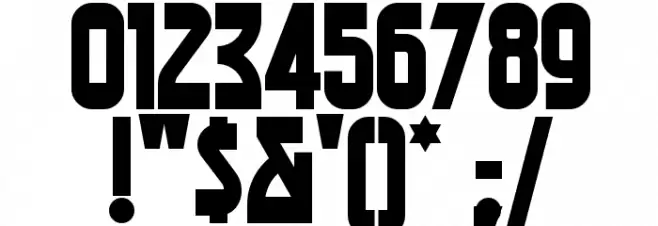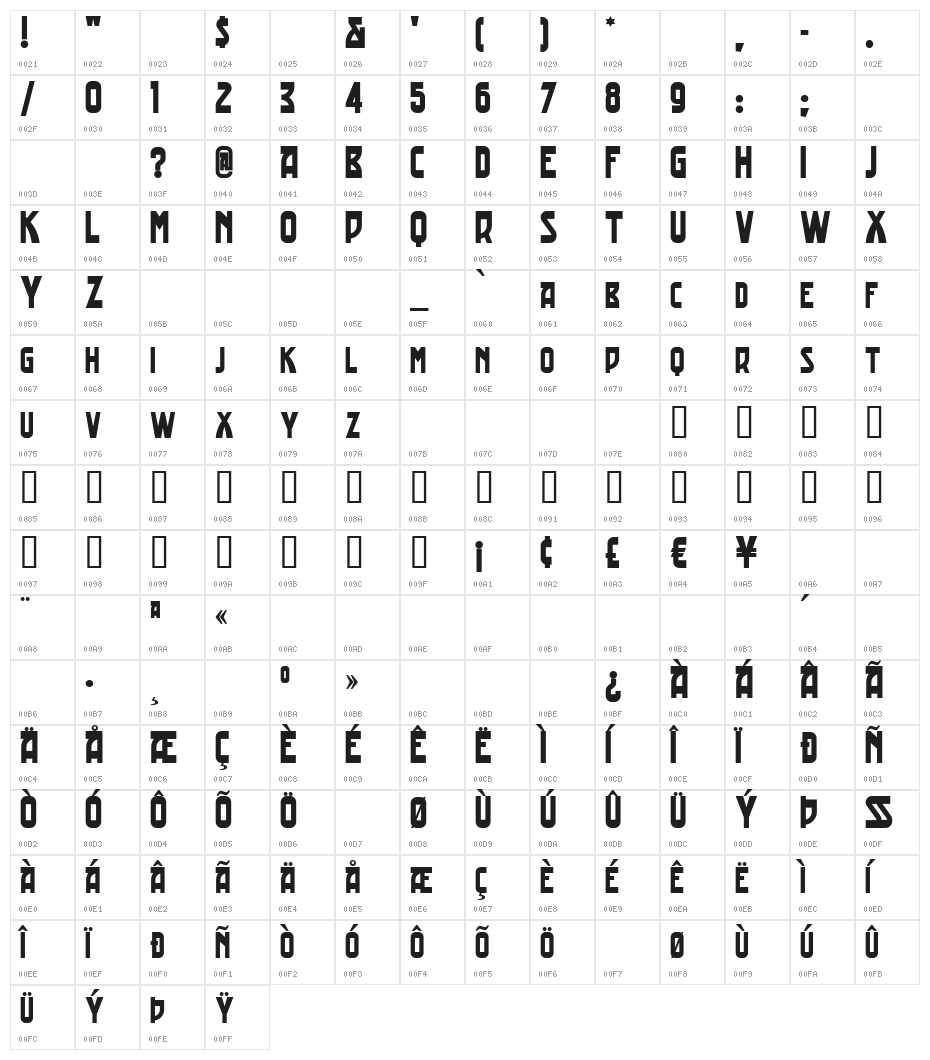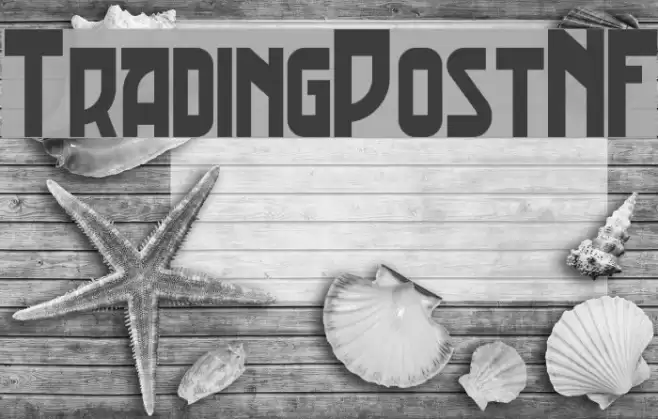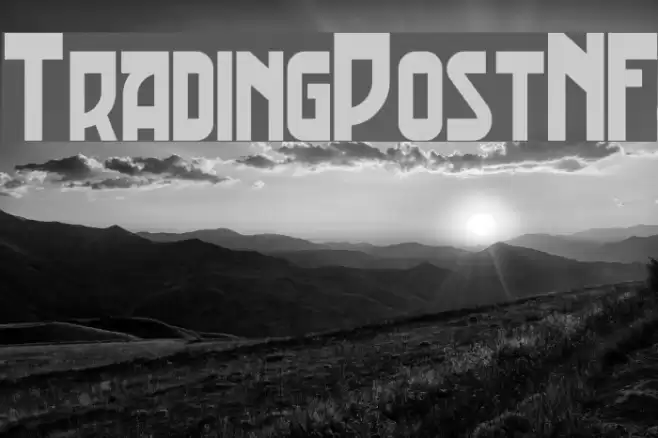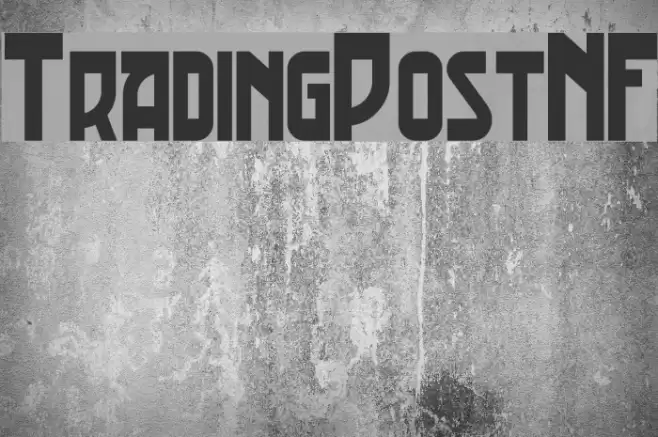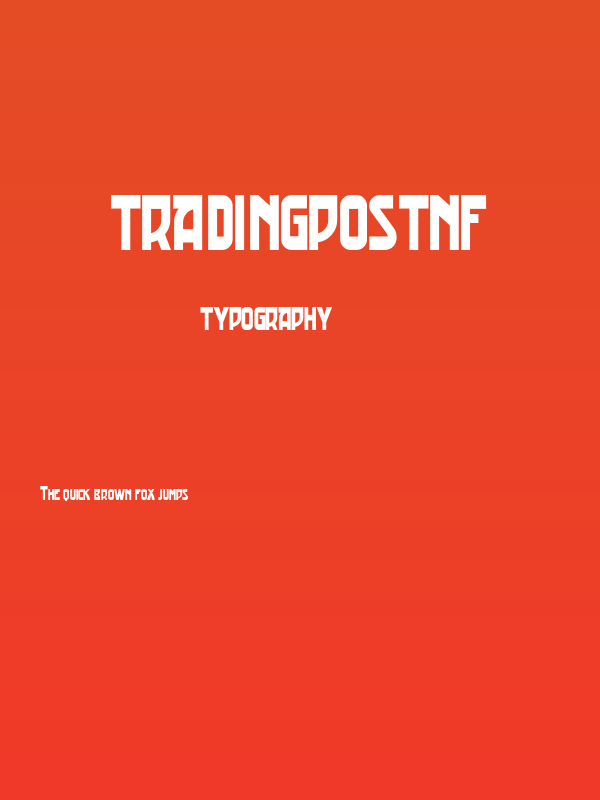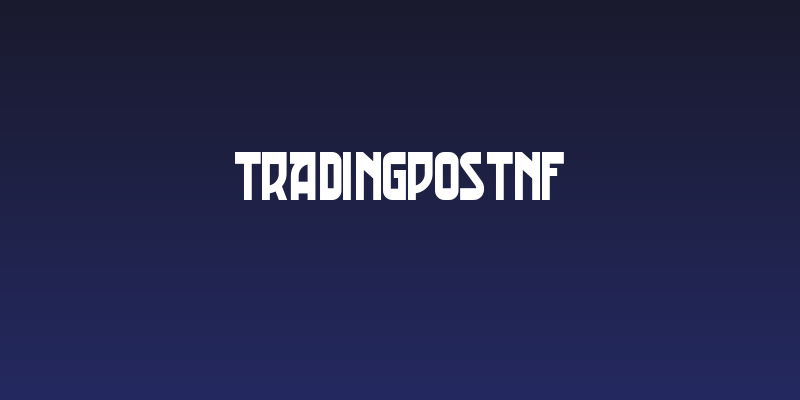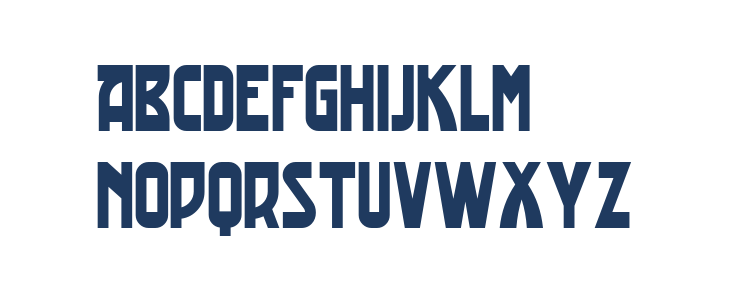
TradingPostNF Font
TradingPostNF Description
This font features a bold and striking design, characterized by its geometric and angular letterforms. The uppercase letters are particularly prominent, with sharp edges and a strong presence. The font maintains a consistent weight throughout, giving it a cohesive and uniform appearance. The numerals and special characters are equally bold, complementing the overall aesthetic. The style is reminiscent of vintage signage, making it ideal for projects that require a retro or industrial feel. The spacing between characters is tight, enhancing the compact and impactful nature of the font.
| Proposed Projects | Ideal for posters, logos, and branding projects that require a bold, retro aesthetic. |